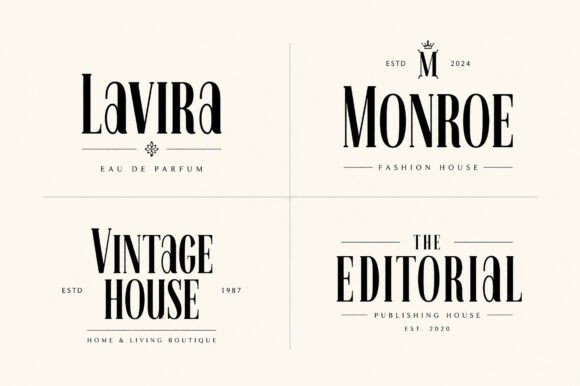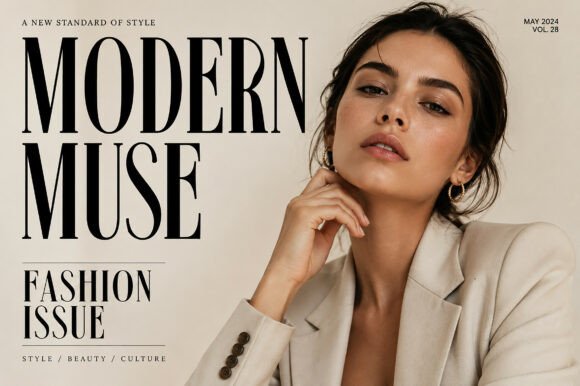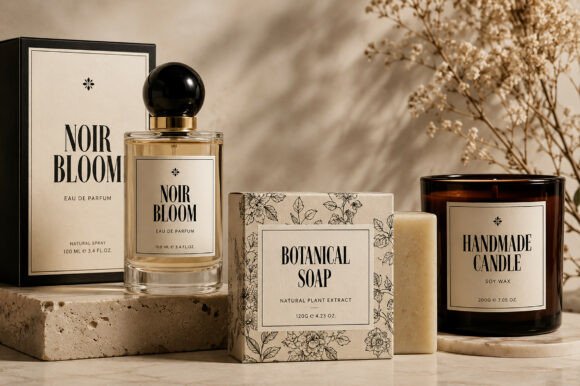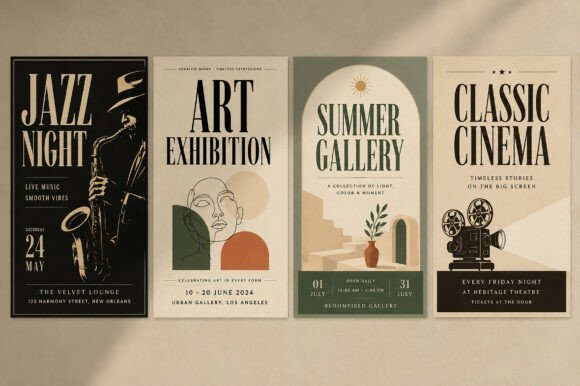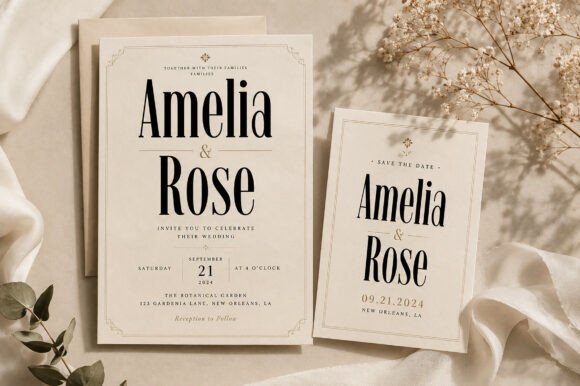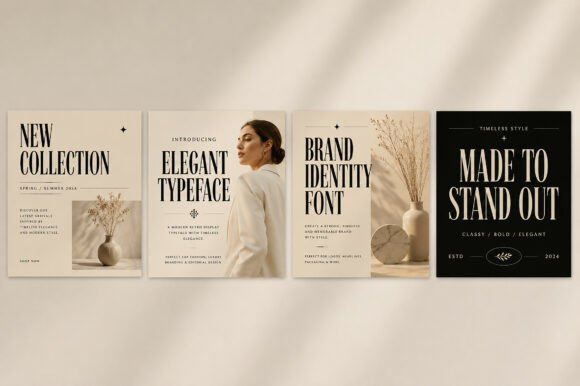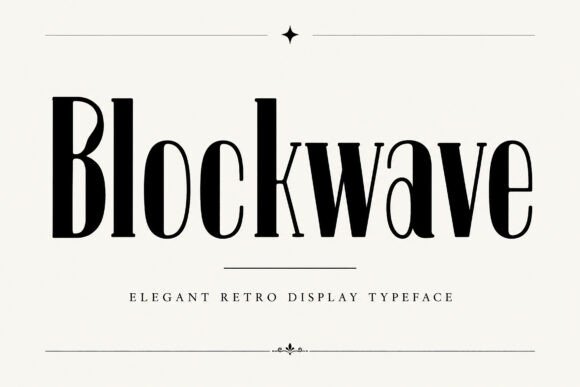
Introducing Blockwave Font: Elevate Your Designs with Timeless Elegance
Are you on the hunt for a font that seamlessly blends modernity with nostalgia? Look no further than Blockwave, the stylish yet straightforward go-to for creating memorable digital impressions. This elongated, condensed display font is poised between the contemporary and the nostalgic, making it the perfect addition to your design arsenal.
The Brilliance of Blockwave
The brilliance of Blockwave lies in its unique blend of elegance and audacity. Its strikingly vertical letterforms carry an unmissable air of bold poise, making it an excellent choice for designers seeking to make a statement. Whether you’re working on minimalist logos, trendy fashion brandings, compelling headlines, or magazine layouts, Blockwave’s meticulous balance of style and substance ensures it finds a home in a staggering array of design applications.
Key Features of Blockwave Font
- Vivid Contrast: Blockwave’s design boasts a vivid contrast that sets it apart from other fonts. This contrast adds depth and visual interest, making your designs more engaging and attention-grabbing.
- Parsimonious Proportions: The font’s condensed proportions make it perfect for use in titles, headings, and other display applications where space is limited.
- Crispy Structure: Blockwave’s crisp structure ensures that your designs look sharp and clean, even at smaller sizes.
Why Choose Blockwave?
So, why should you choose Blockwave for your design projects? Here are just a few compelling reasons:
- Timeless Aesthetic: Blockwave’s unique blend of modernity and nostalgia ensures that your designs will stand the test of time. Whether you’re working on a branding project or a magazine layout, Blockwave’s timeless aesthetic will help your work remain relevant for years to come.
- Versatility: Blockwave’s versatility is unmatched. Its elegant yet bold design makes it suitable for a wide range of applications, from minimalist logos to trendy fashion brandings.
- Memorable Impressions: With Blockwave, you can create memorable digital impressions that leave a lasting impact on your audience. Its strikingly vertical letterforms and vivid contrast ensure that your designs won’t go unnoticed.
Using Blockwave in Your Designs
Ready to incorporate Blockwave into your design workflow? Here are a few tips to get you started:
- Pair with Neutral Fonts: Blockwave’s bold design makes it perfect for use as a headline or title font. Pair it with neutral fonts to create visual interest and add depth to your designs.
- Experiment with Colors: Blockwave’s vivid contrast makes it an excellent choice for use in designs with bold color schemes. Experiment with different colors to find the perfect combination for your project.
- Play with Proportions: Blockwave’s condensed proportions make it perfect for use in titles and headings. Experiment with different proportions to add visual interest to your designs.
In conclusion, Blockwave is an exceptional font that offers a unique blend of elegance and audacity. Its timeless aesthetic, versatility, and memorable impressions make it an excellent addition to any designer’s workflow. Whether you’re working on a branding project, magazine layout, or simply looking to elevate your digital designs, Blockwave is the perfect choice. So why wait? Download Blockwave today and experience the power of stylish yet straightforward typography!